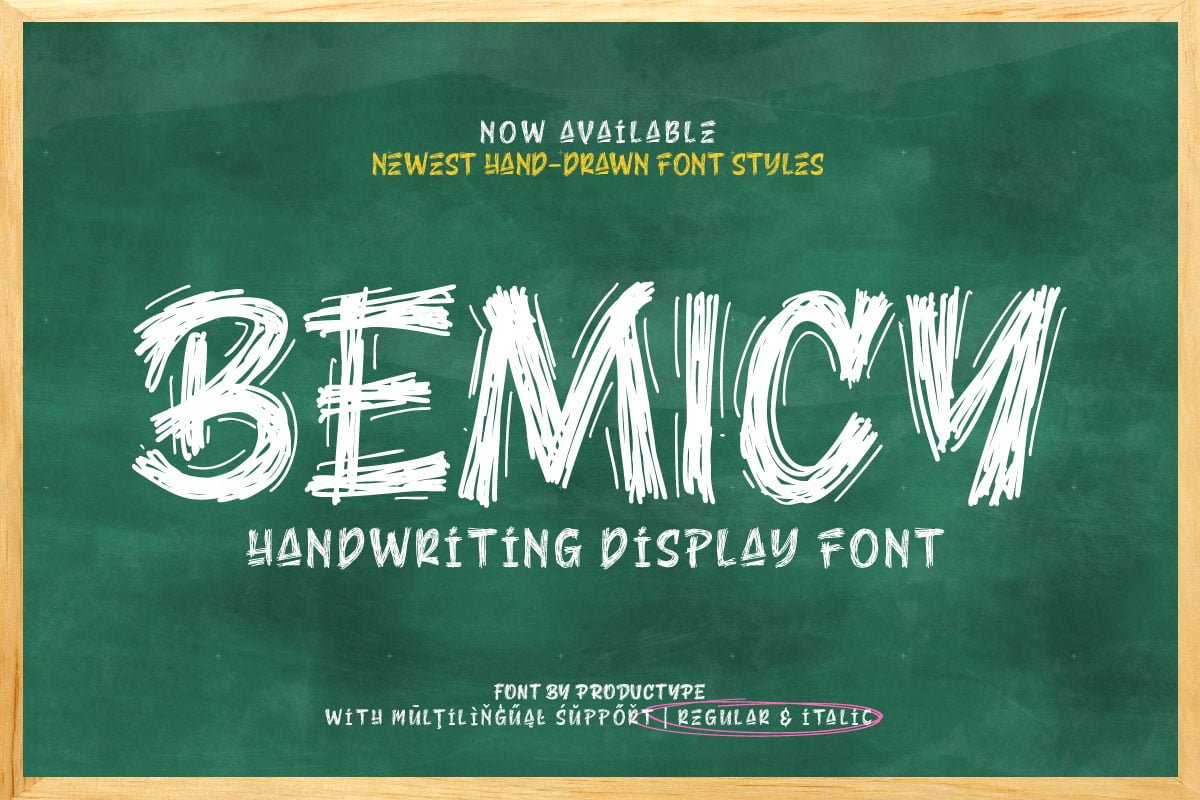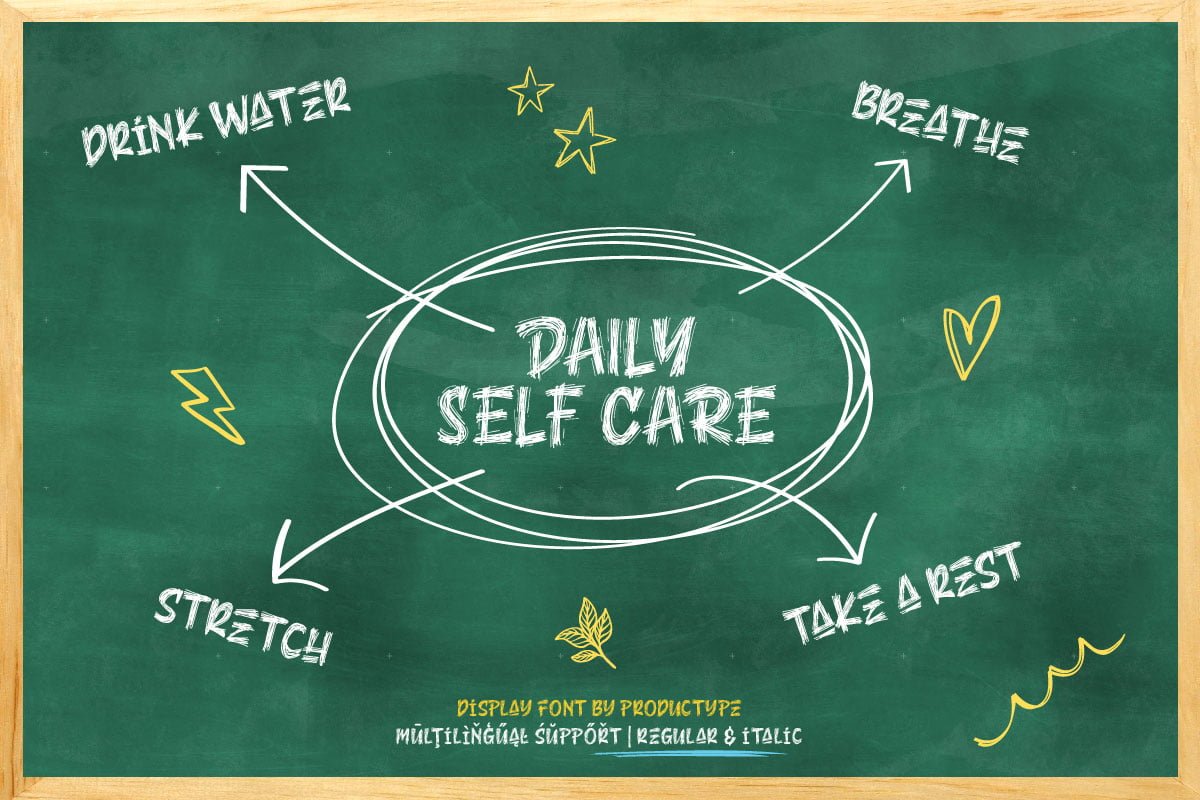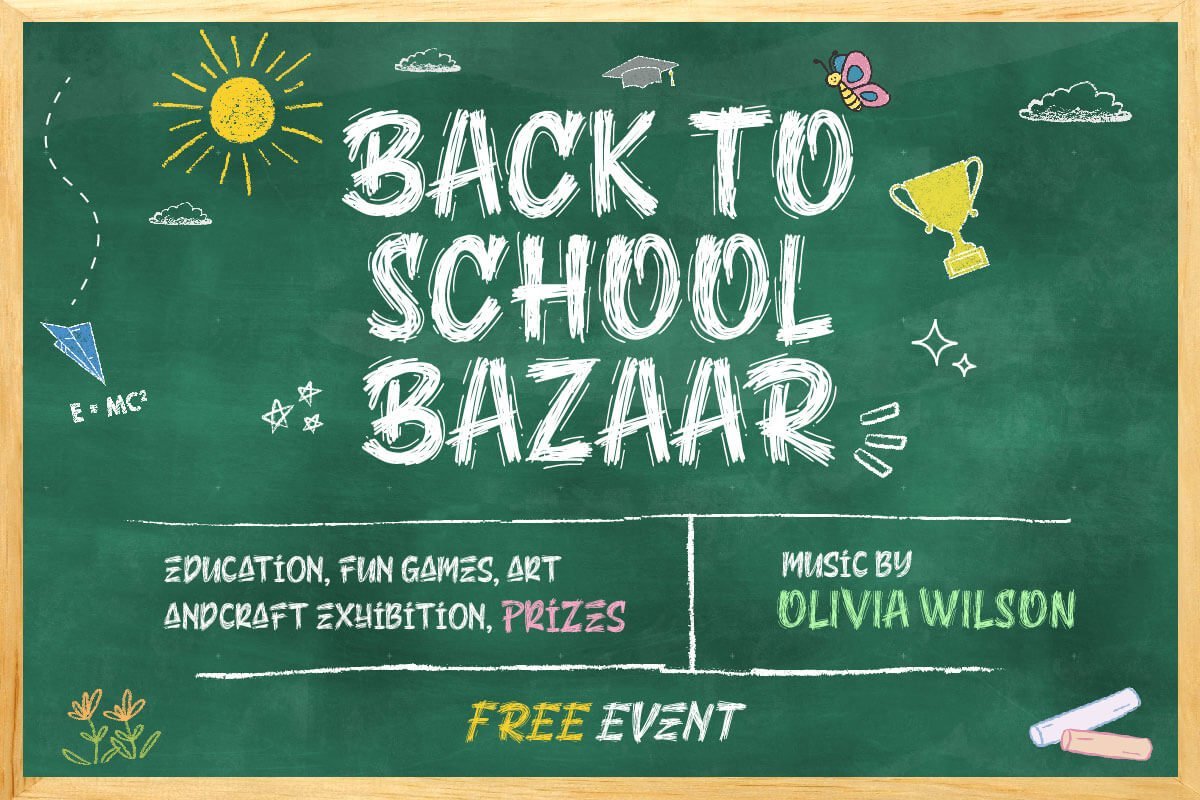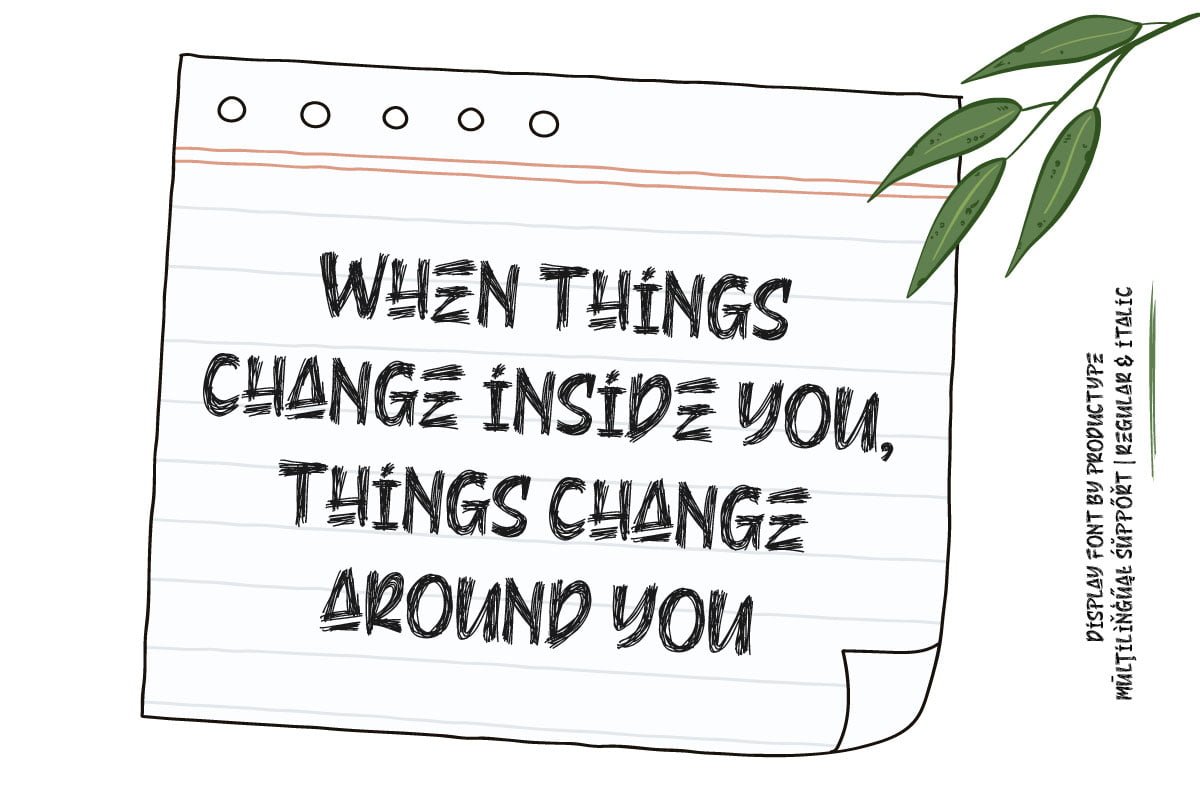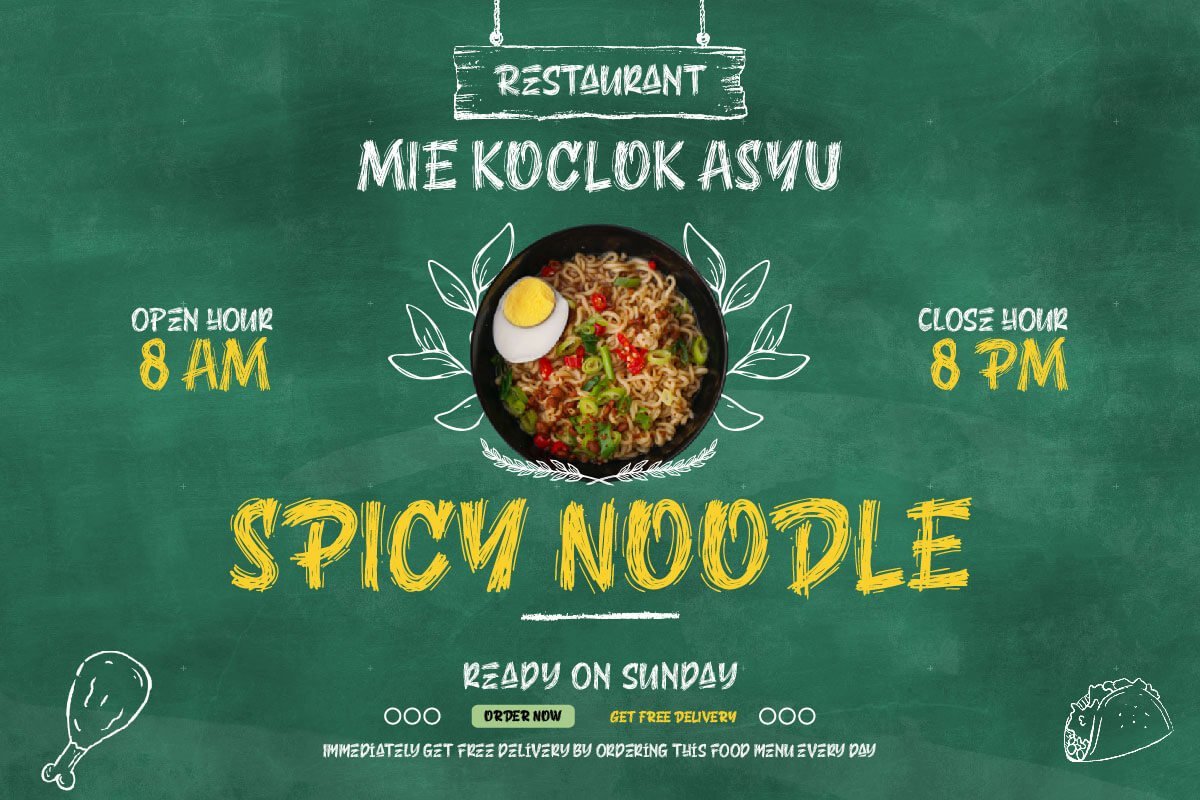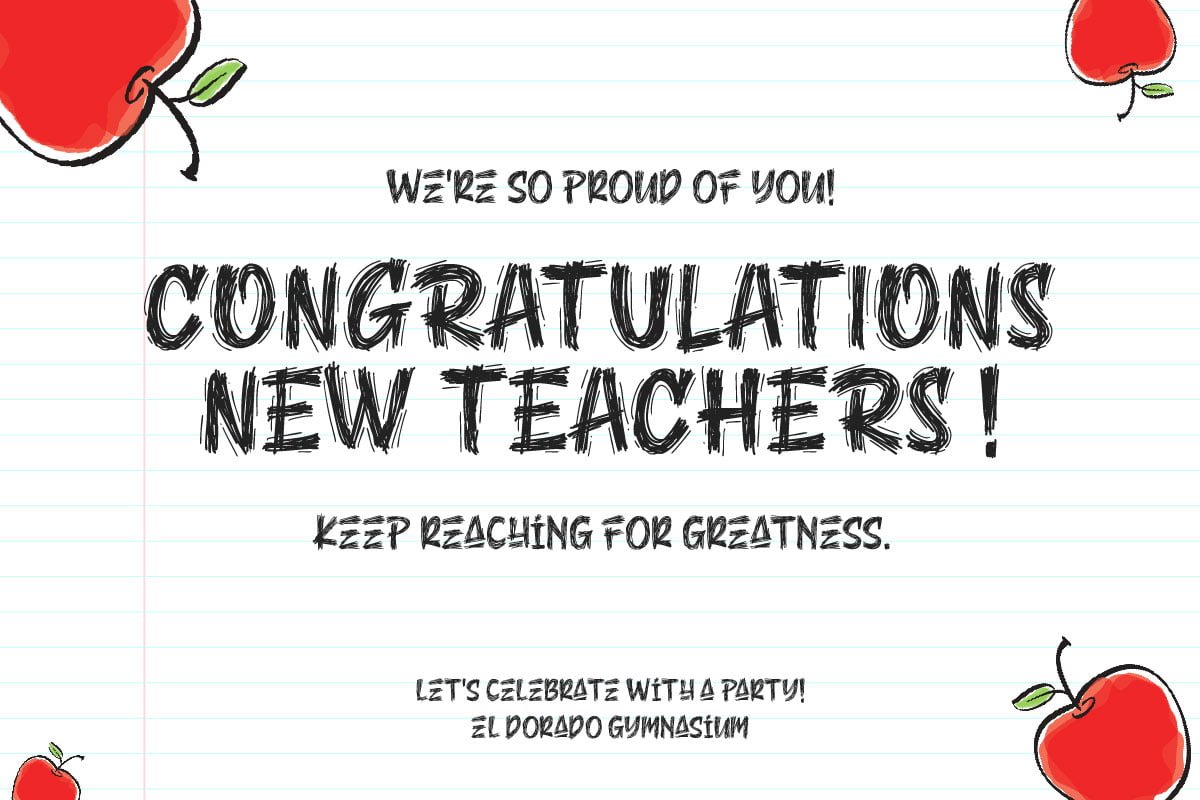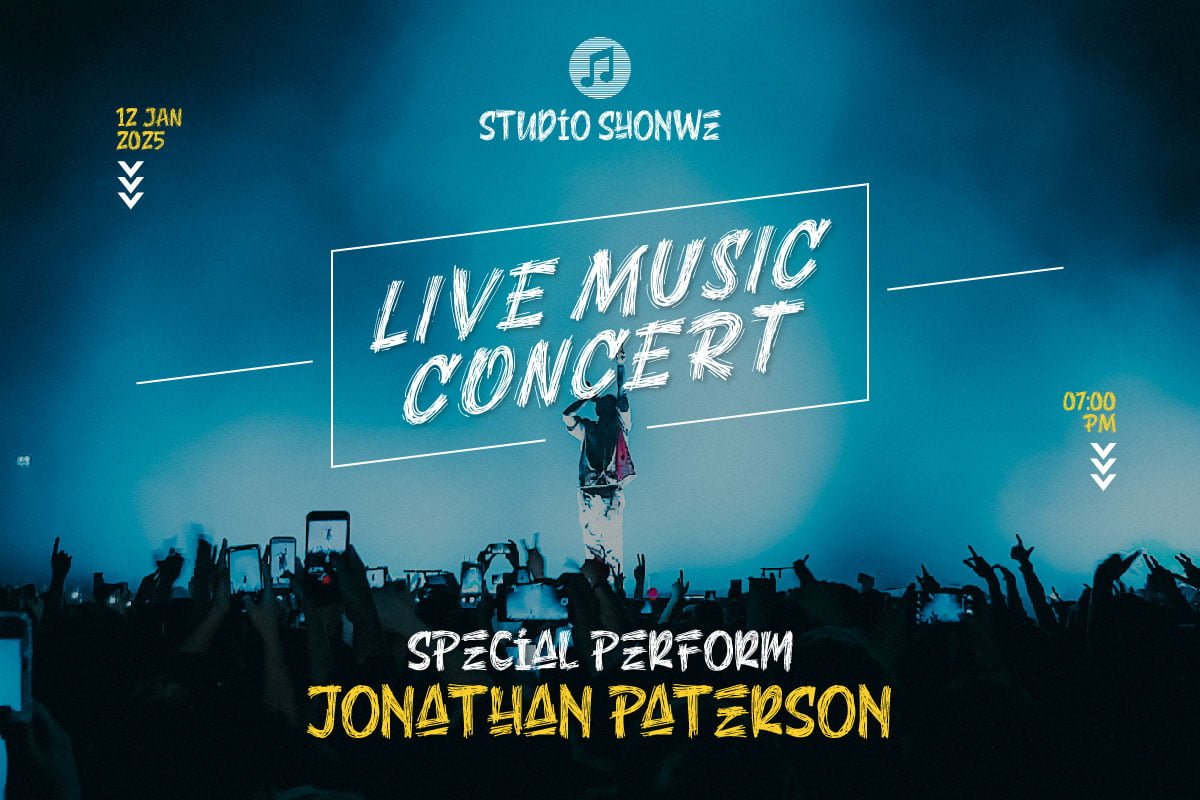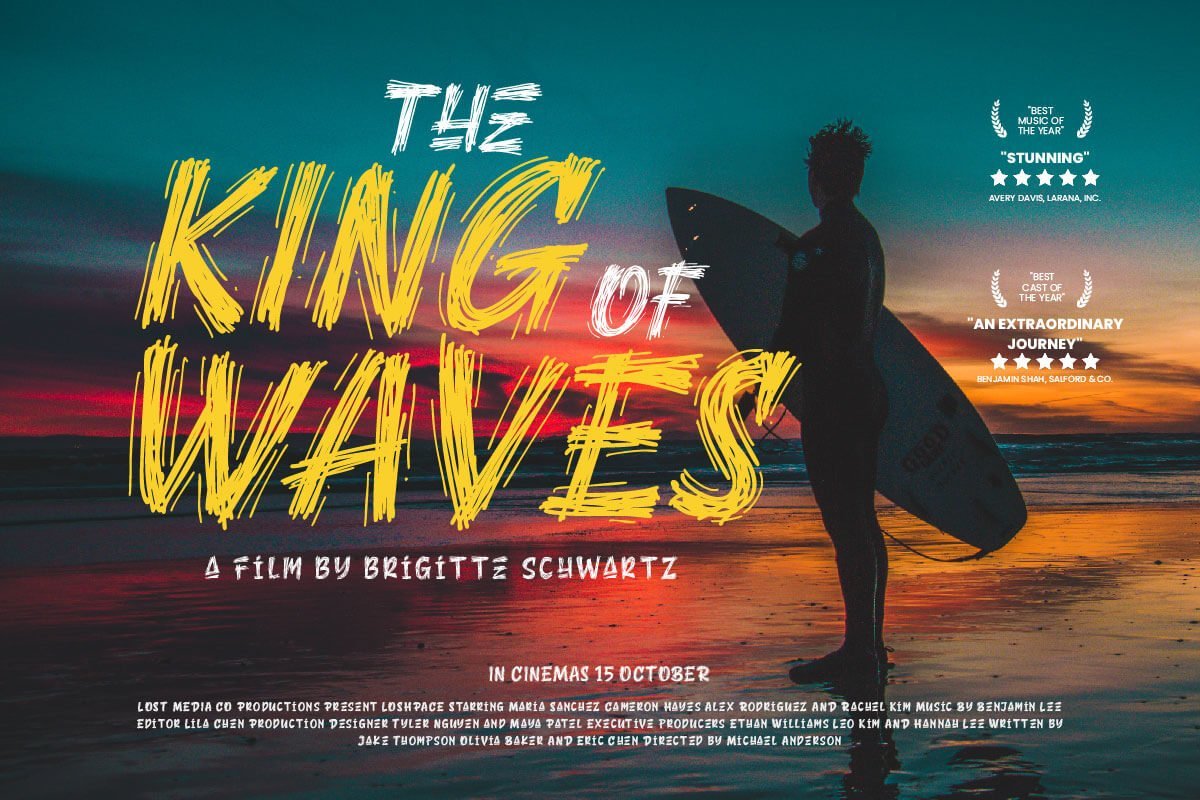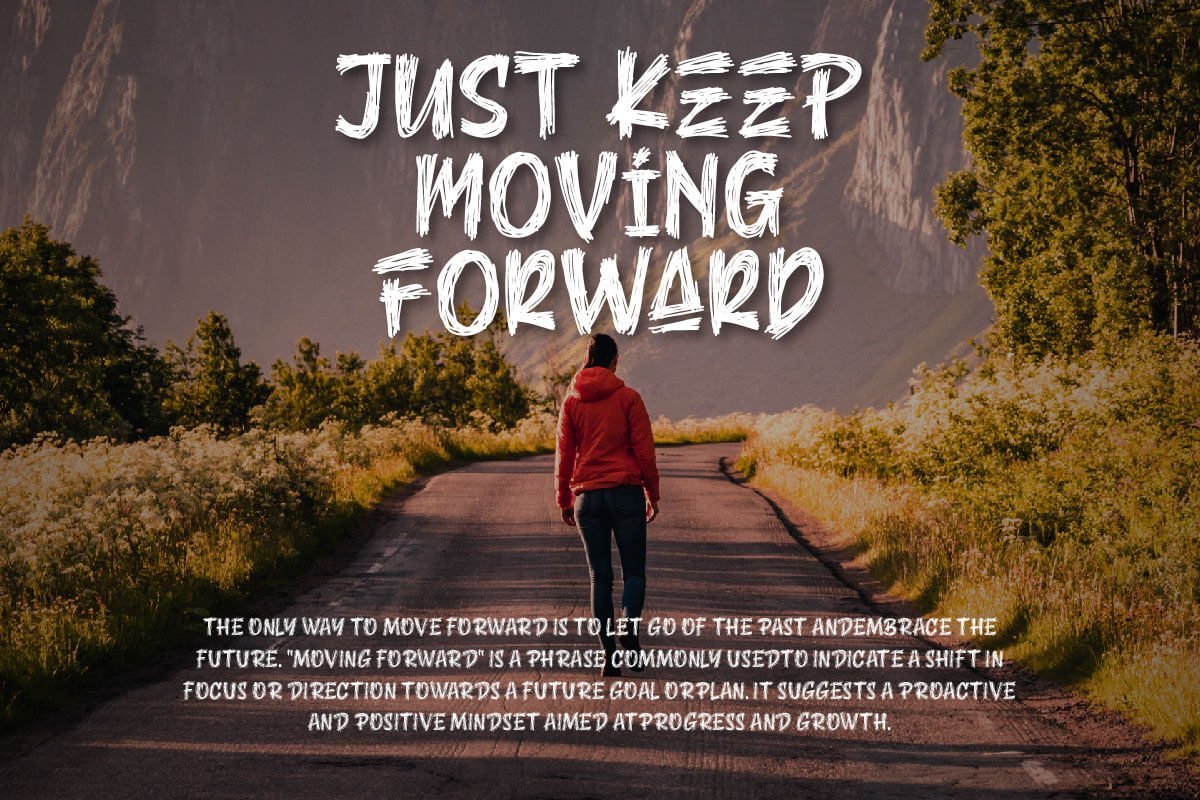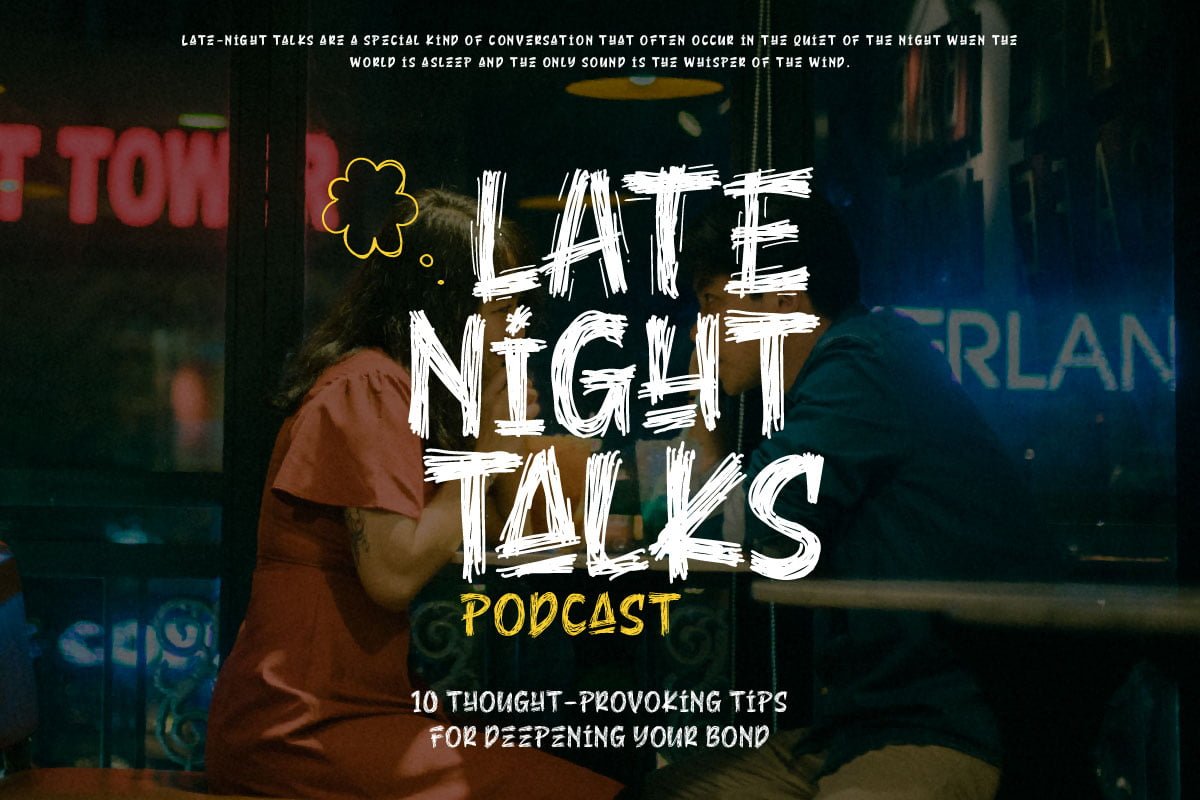
Bemicy – Display Font
Say hello to Bemicy, a display font that combines handwritten touches with scribbled elements. This font comes with uniqueness and wit, bringing an experimental feel to each character.
Each letter in Bemicy exudes a touch of scribbled handwriting, creating a stunningly experimental feel. Bemicy brings artistic uniqueness to your projects, giving them a look that is full of character and distinction.
Bemicy is a great choice for projects that require an experimental, scribbled hand feel. Whether you’re designing promotional materials, posters, or other works of art, these fonts provide an unforgettable personal touch.